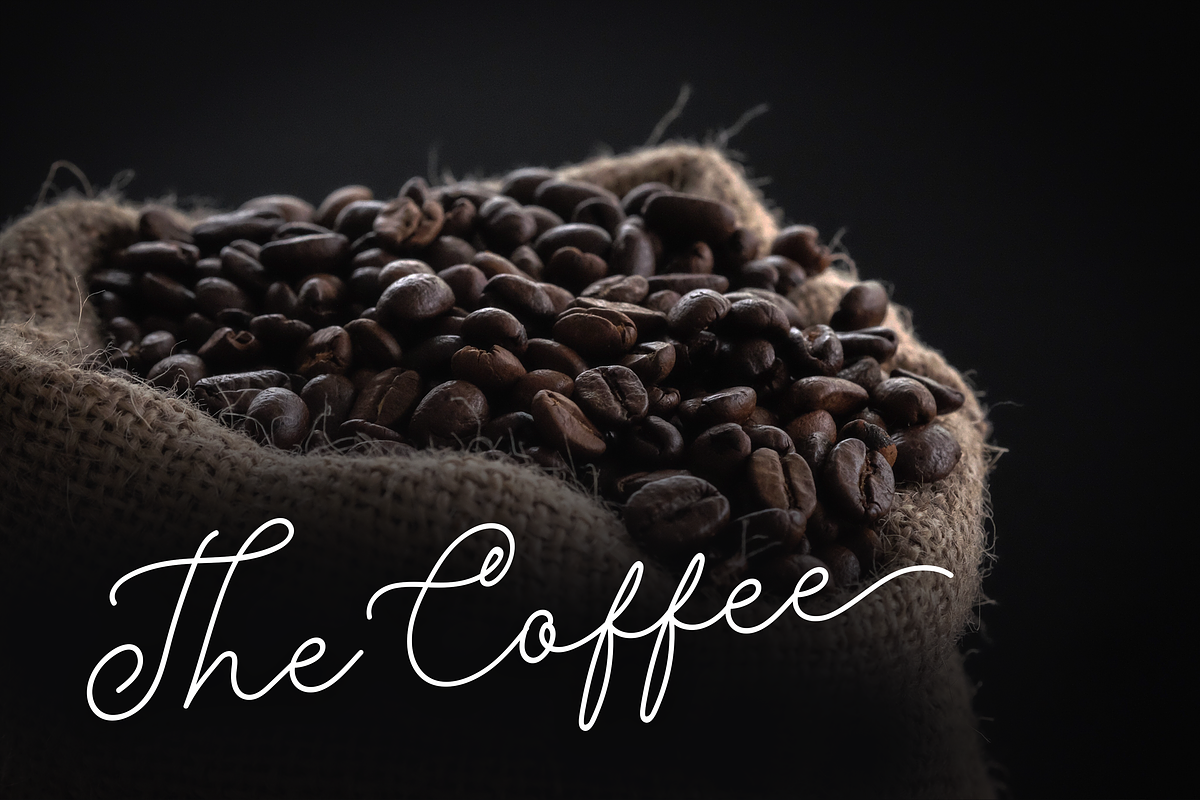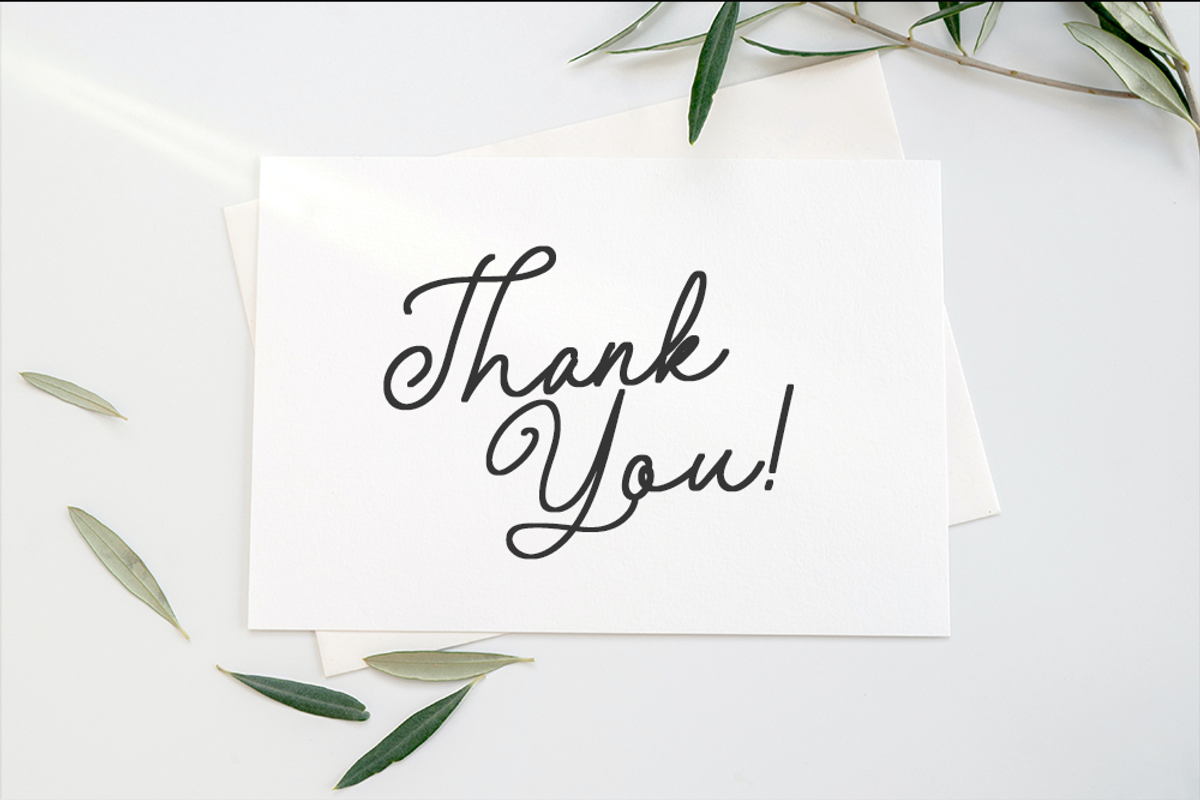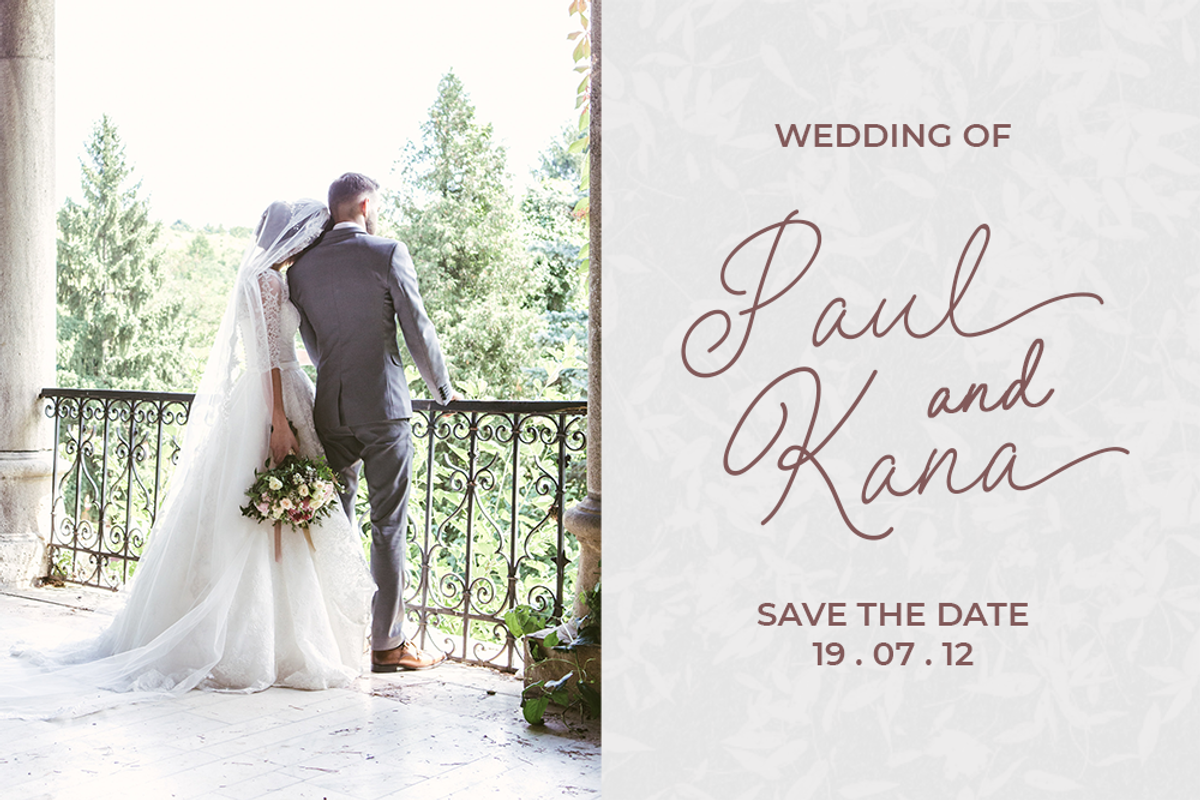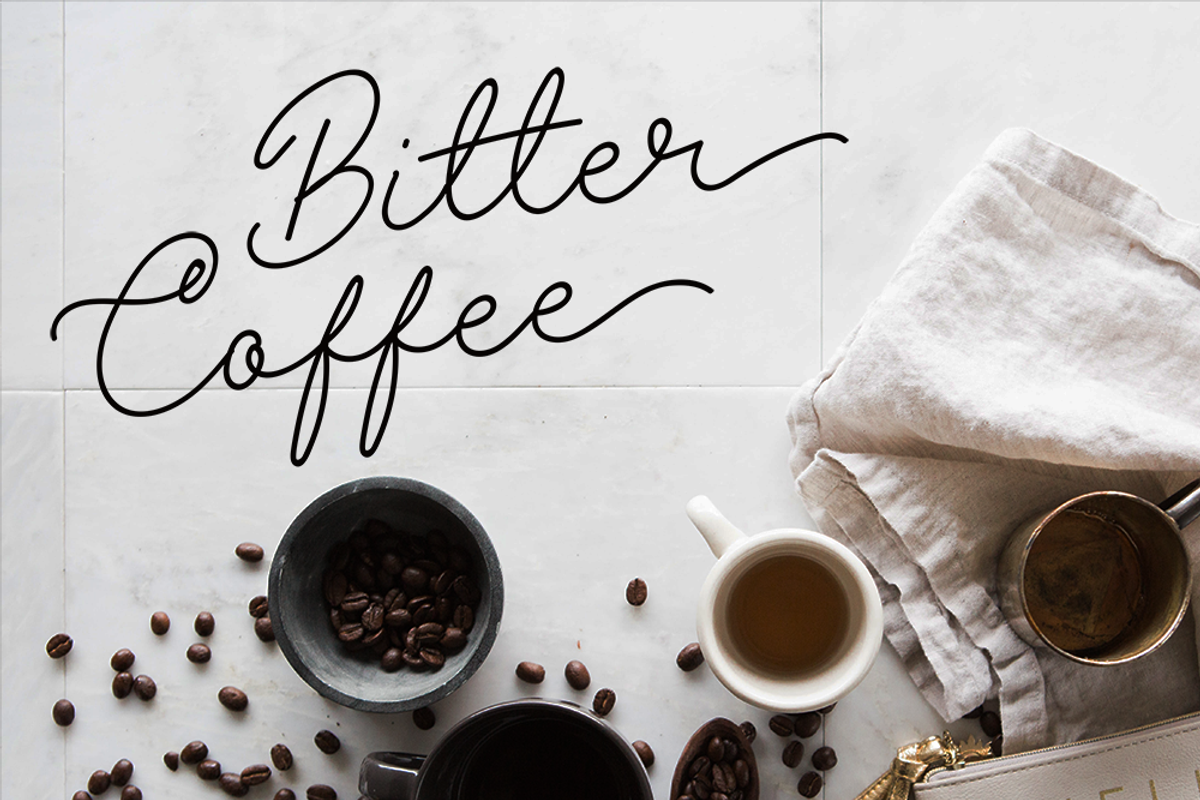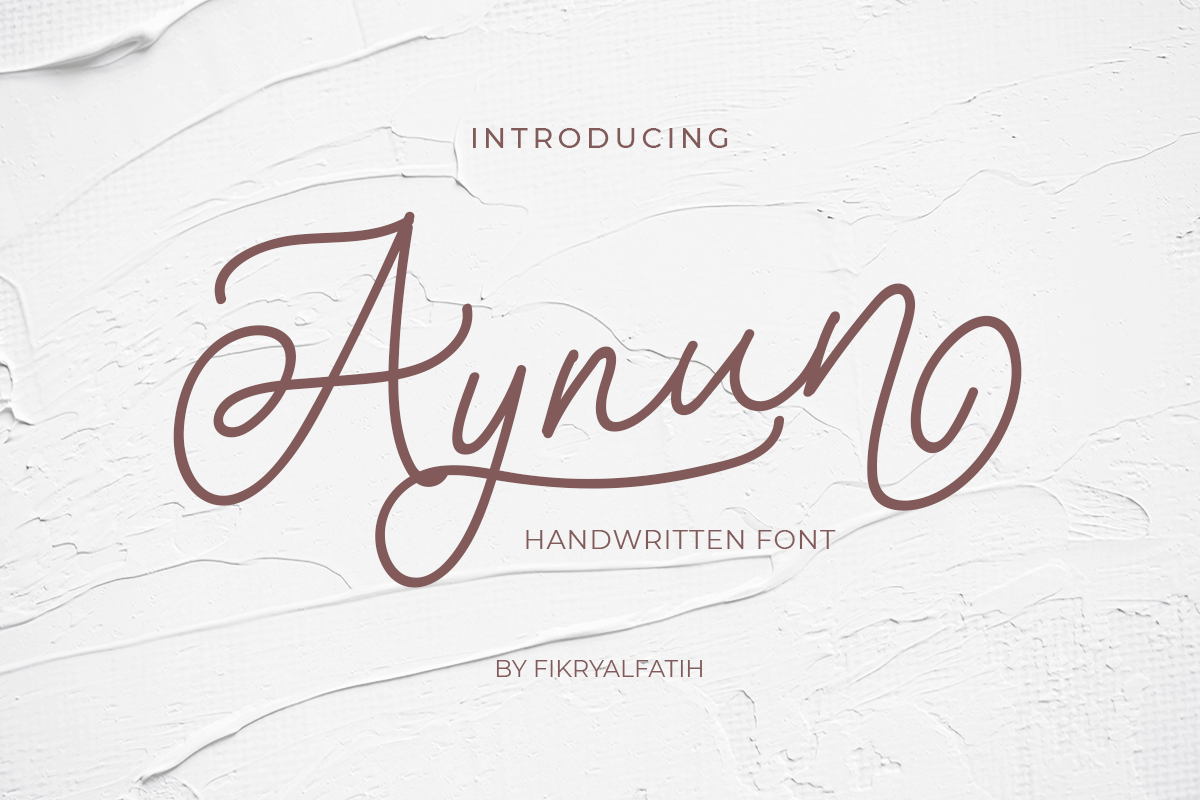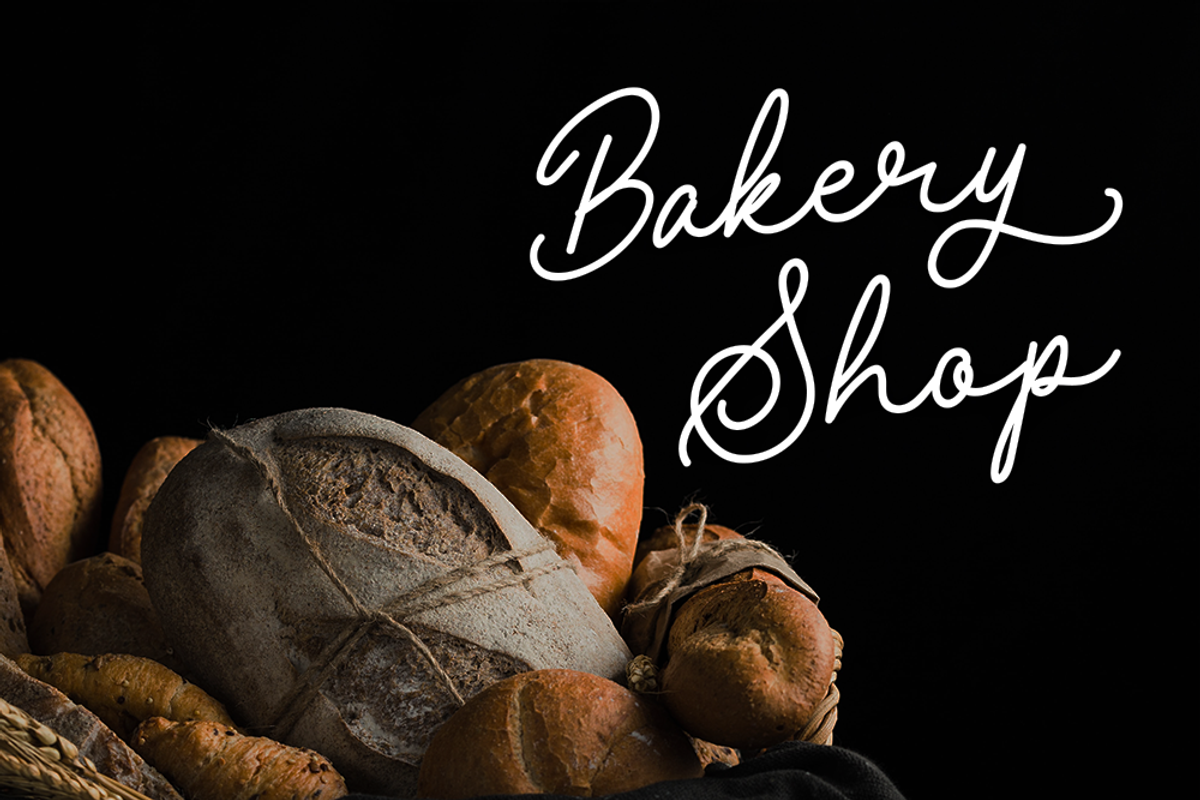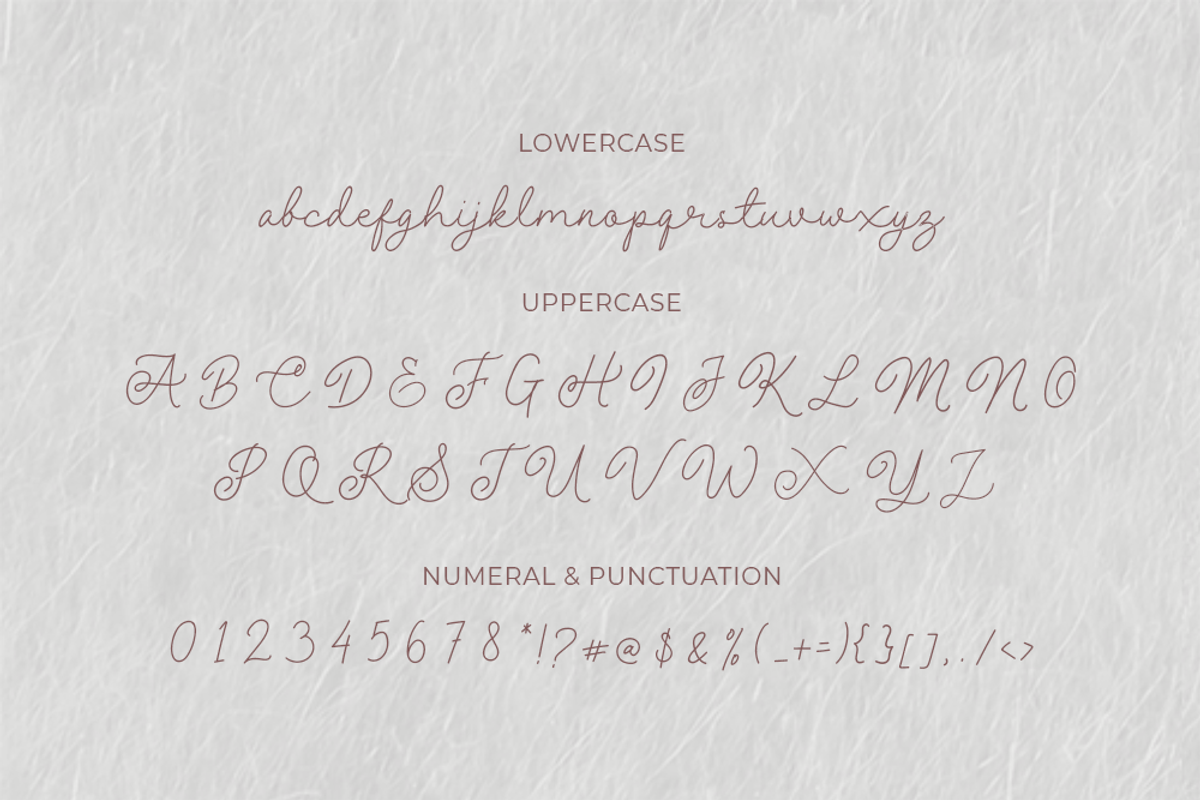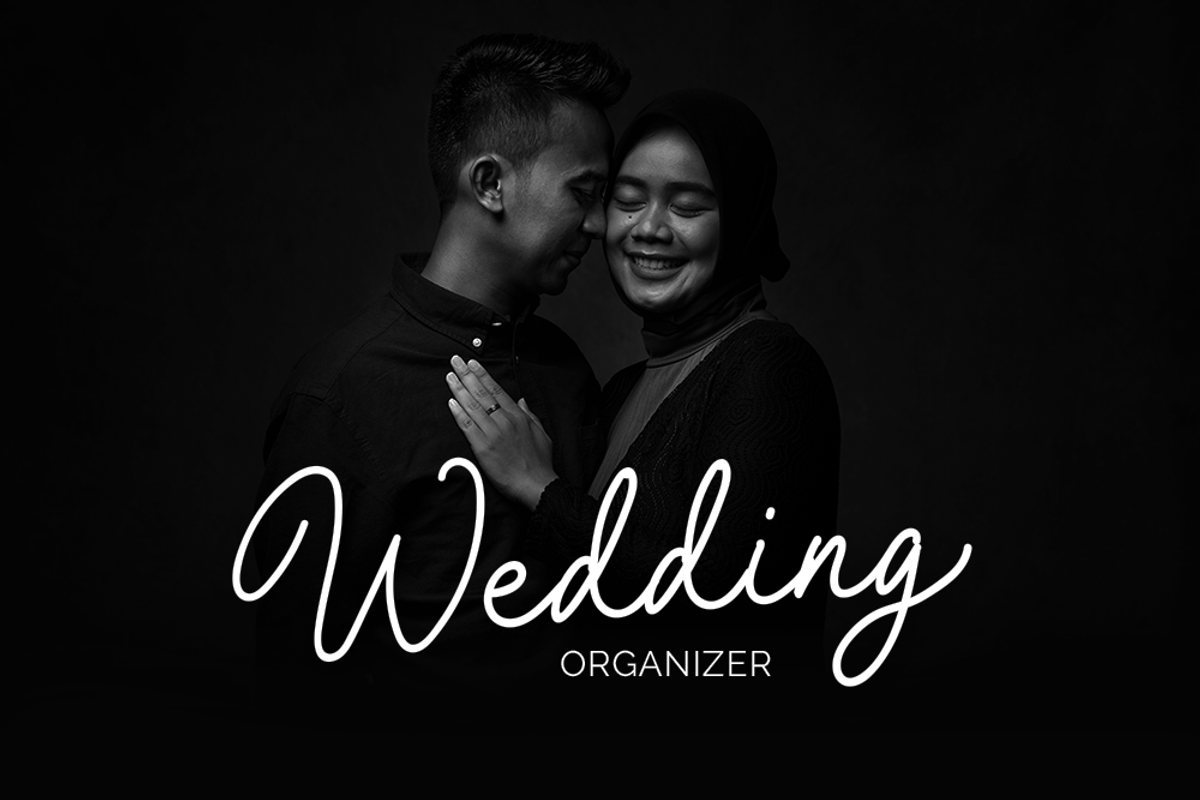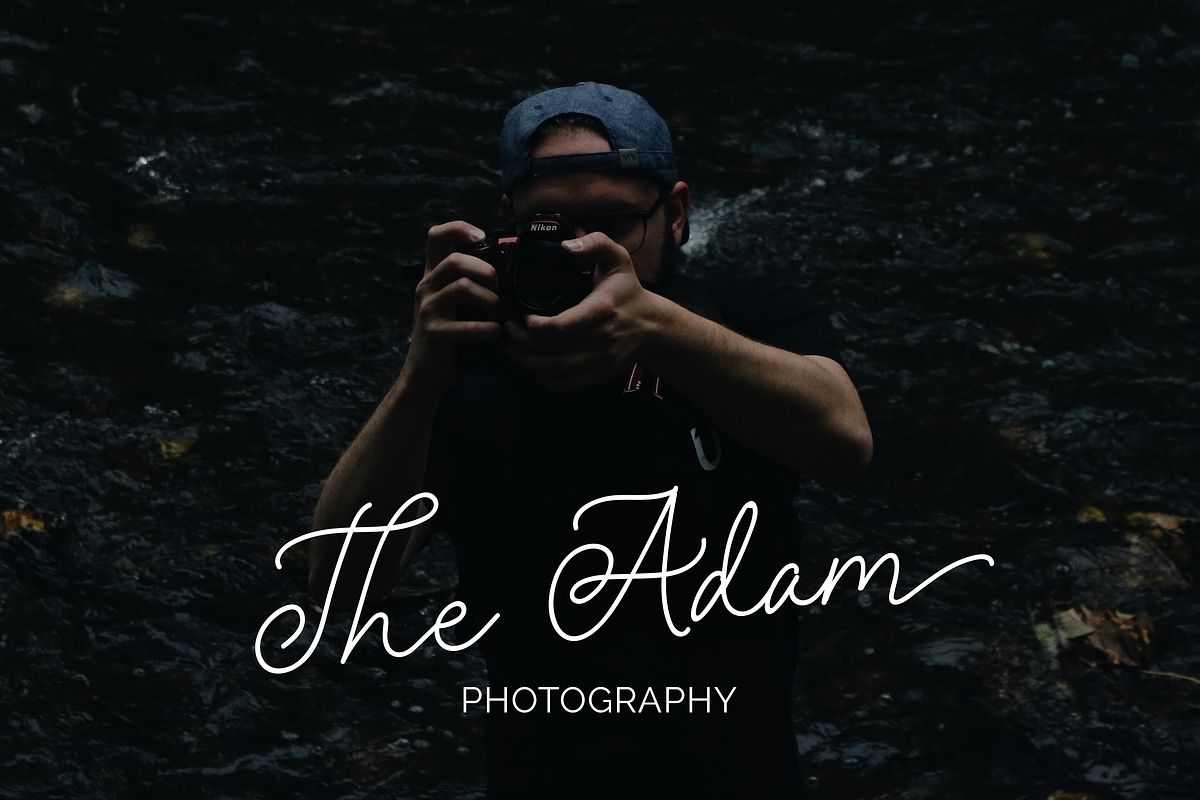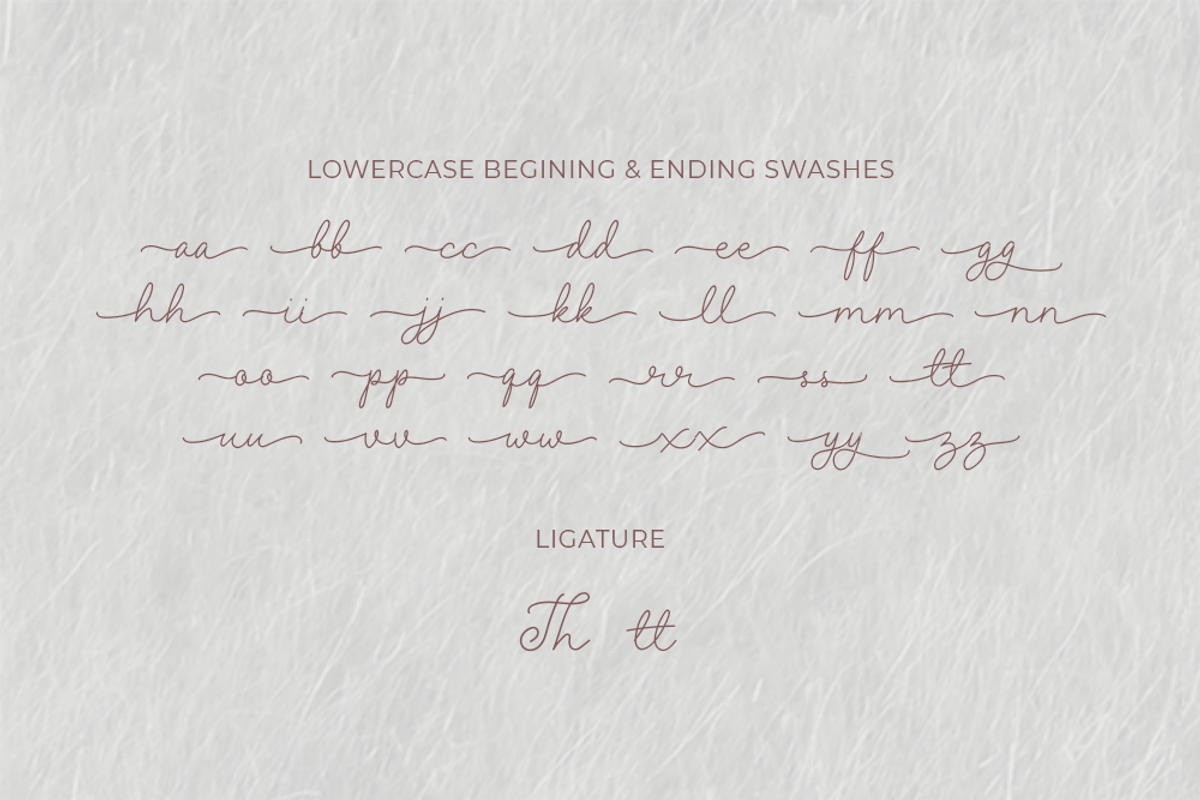
Aynun - Script Font
Aynun is a lovely and delicate script font that exudes elegance and class. This font was particularly crafted for those who need a beautiful and refreshing look to their designs.
- alternative
- swashes